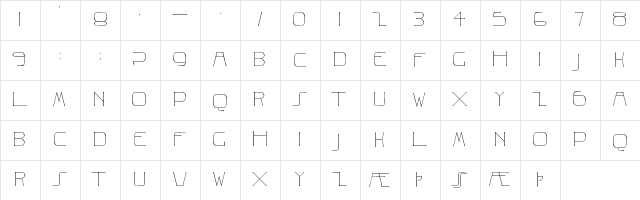
Albrecht Regular Free Font
Albrecht Regular
Designer: Henry Cohn
Design Context for Albrecht
Albrecht is a composed and adaptable typeface that performs quietly and consistently across a wide range of design contexts.